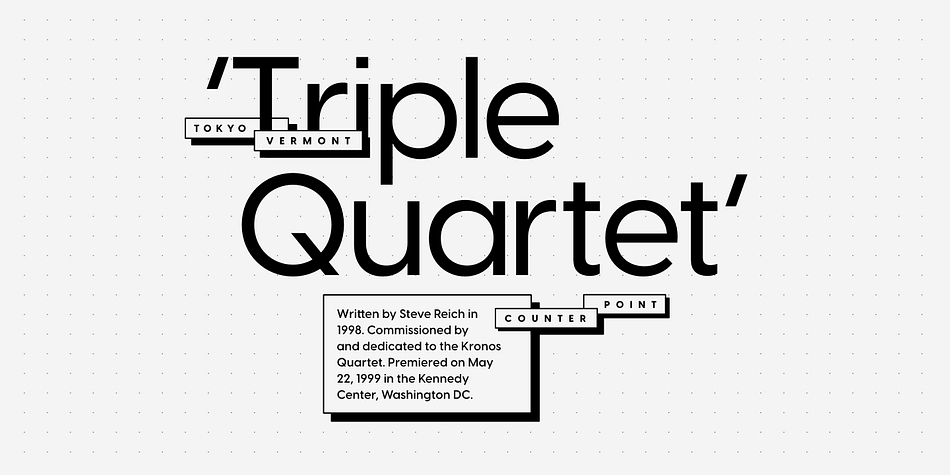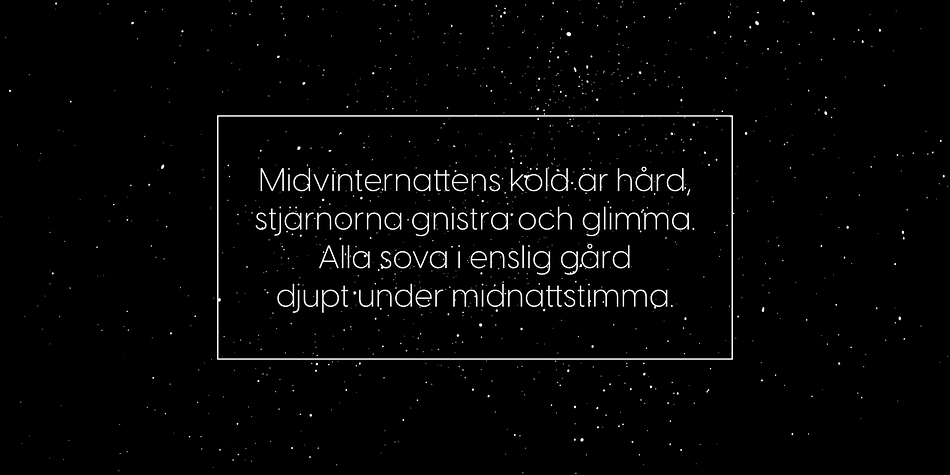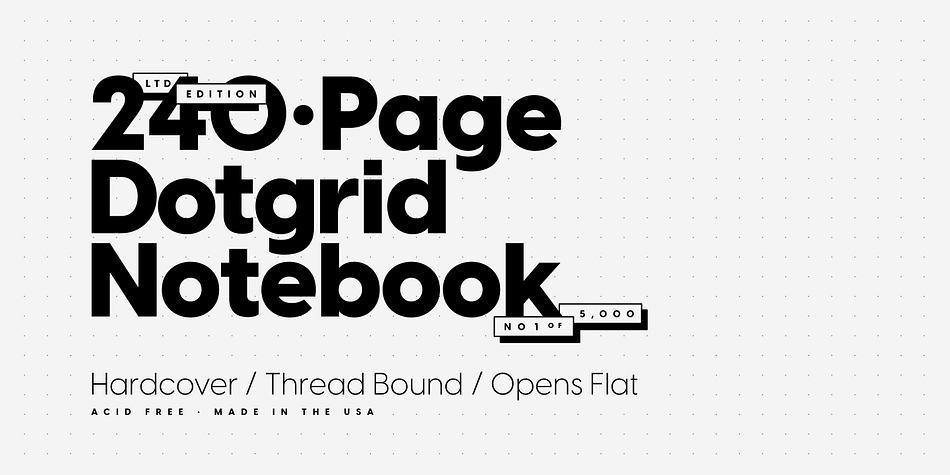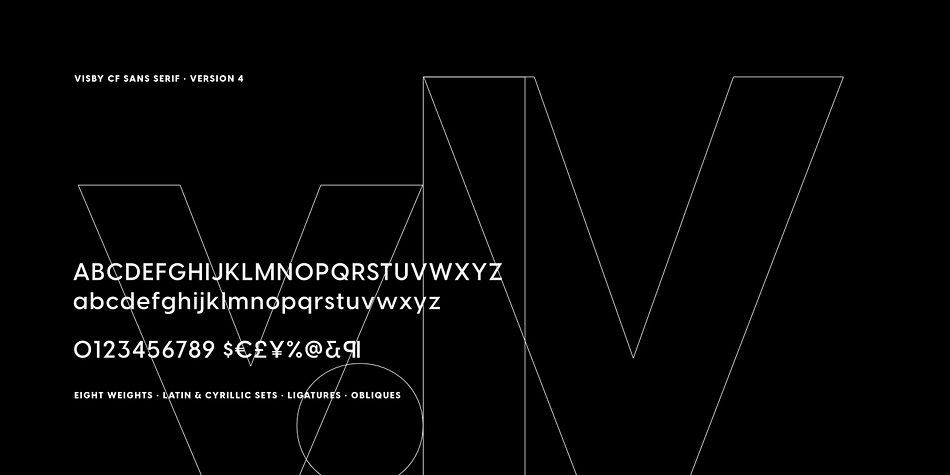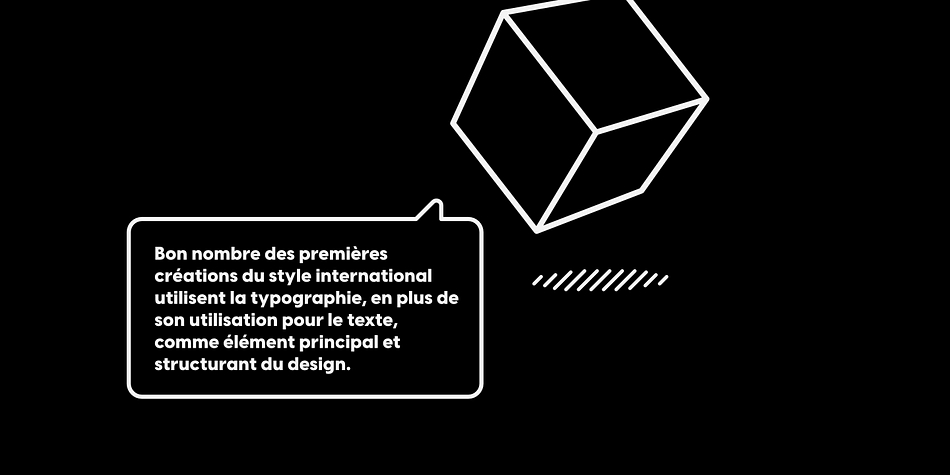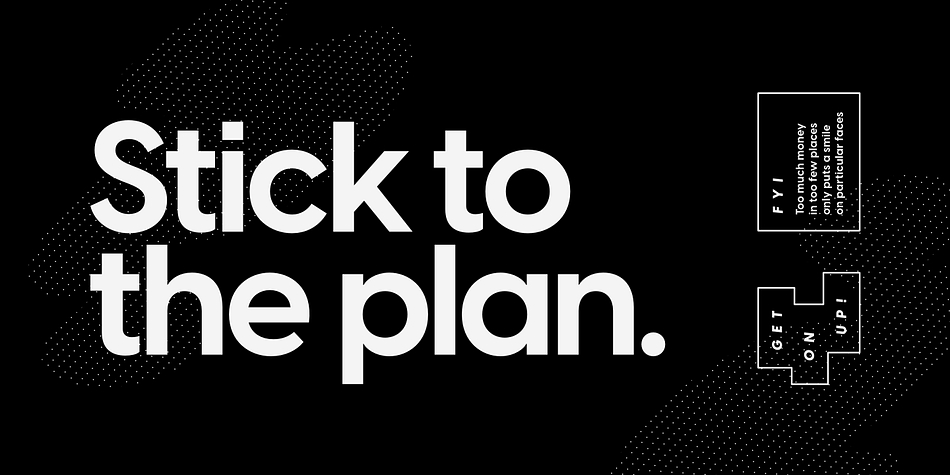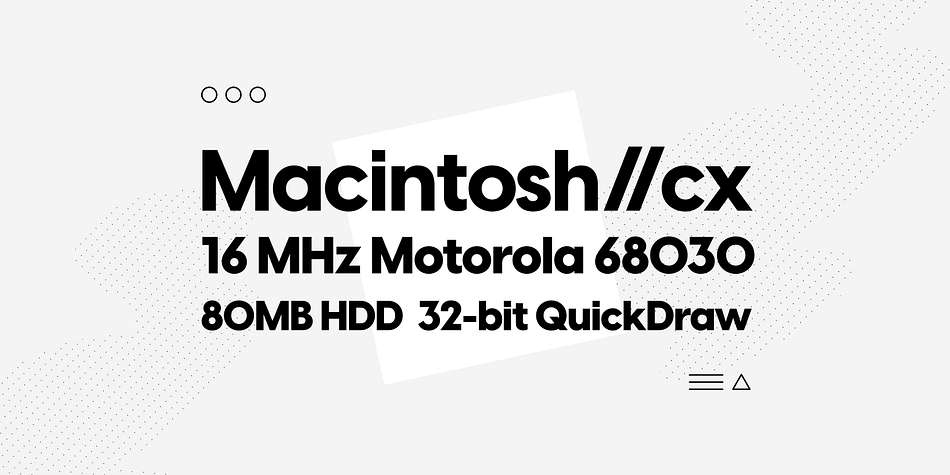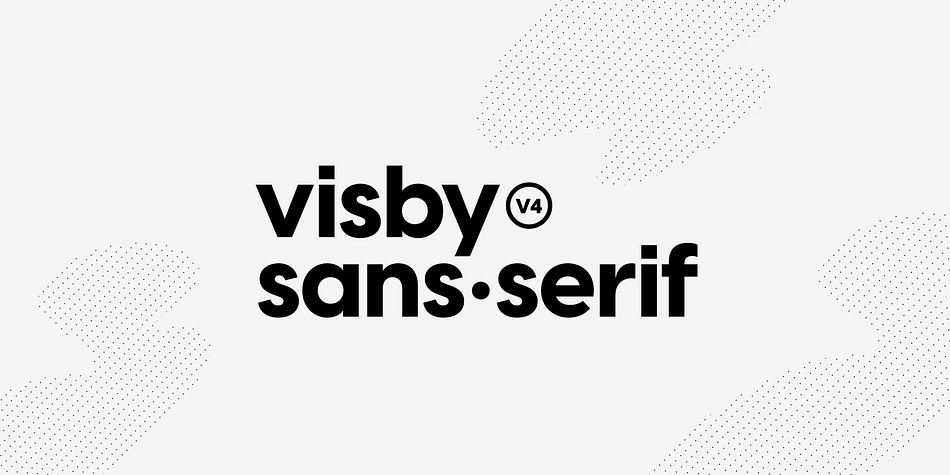
Visby CF is a sans serif font family. This typeface has sixteen styles and was published by Connary Fagen Type Design.
Friendly and charismatic in lowercase; sophisticated and authoritative in uppercase. Visby CF is a geometric font family inspired by the stark beauty and crisp air of the Arctic North. Hard lines and sharp corners mesh with smooth, rounded forms, while subtle humanist influences add warmth.